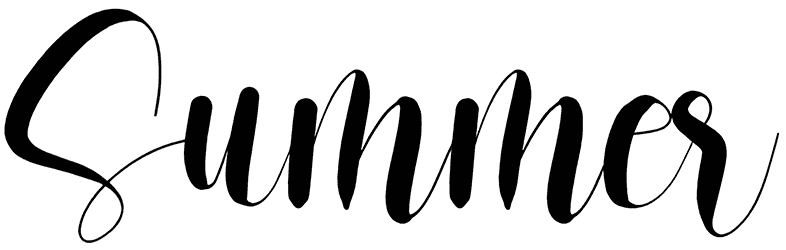
Summer Font
Summer is a charming calligraphy font that combines elegance with beauty to display your work in a natural, modern way. Coming close to you with its smooth and round lines, then bring your creative idea from your mind to the real world.
Remember that it might seem a little unreadable, especially in a long text. You can take advantage of this summer font in wedding invitations, announcements, book covers, home décor, and greeting cards.